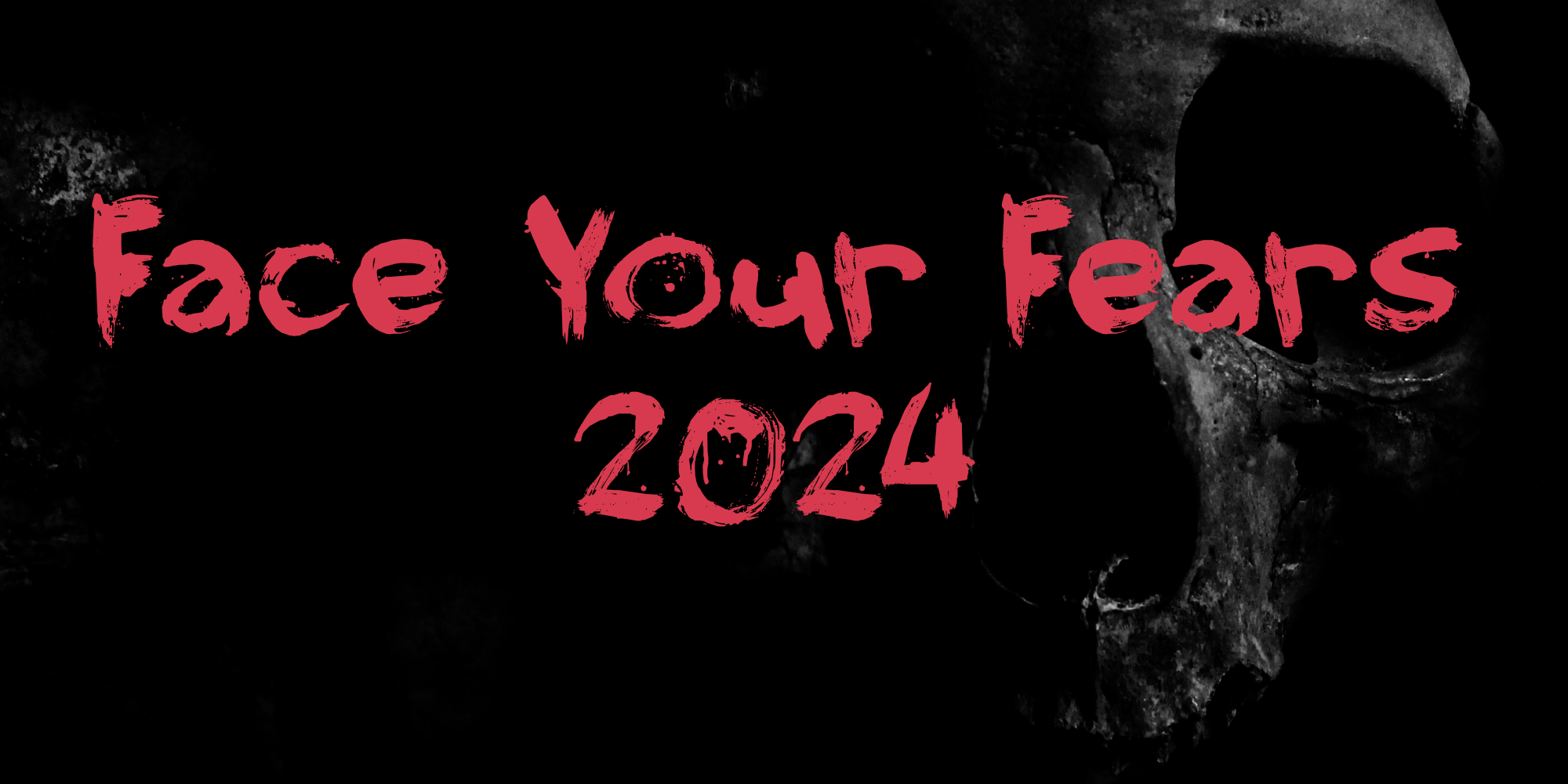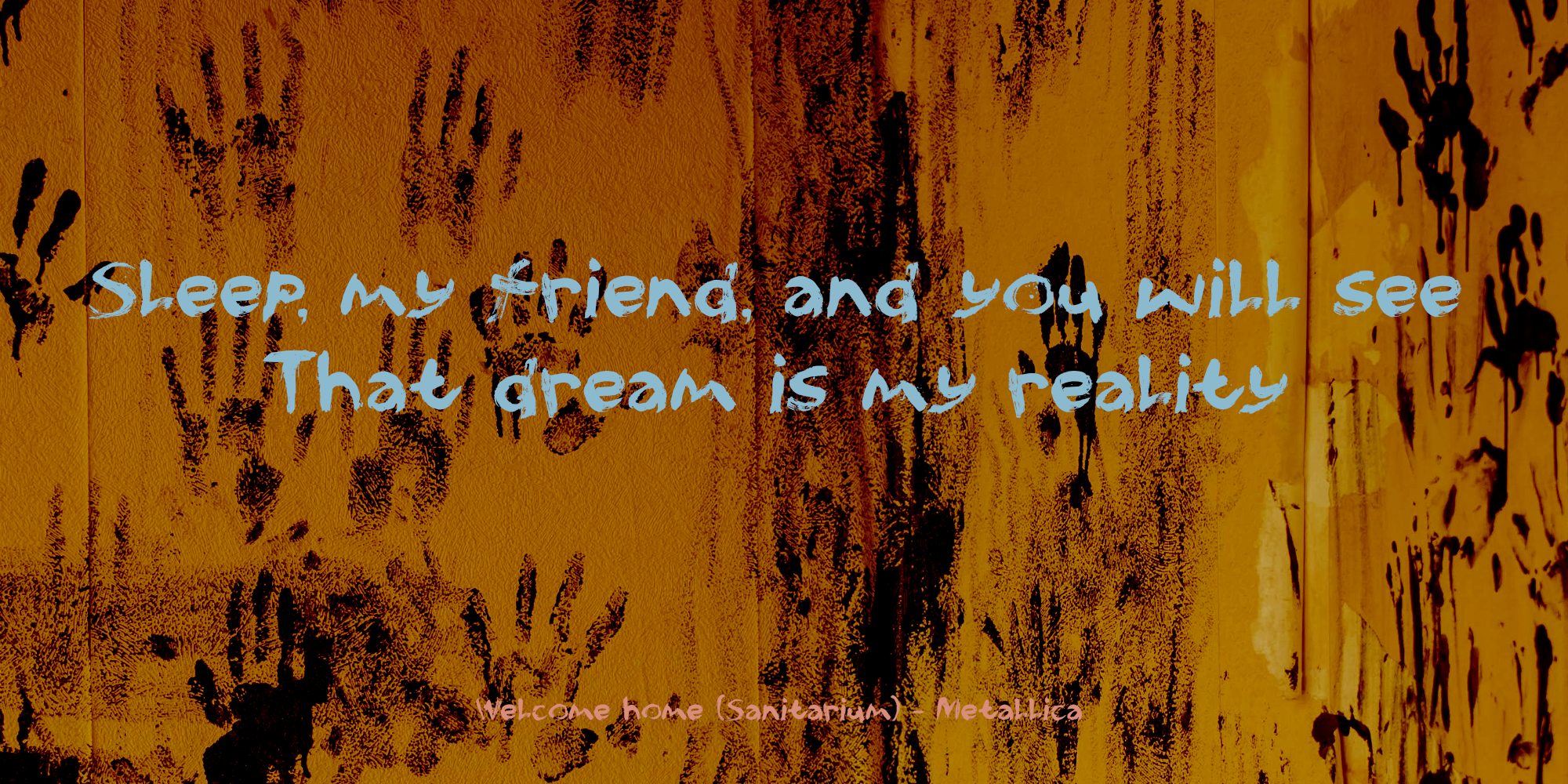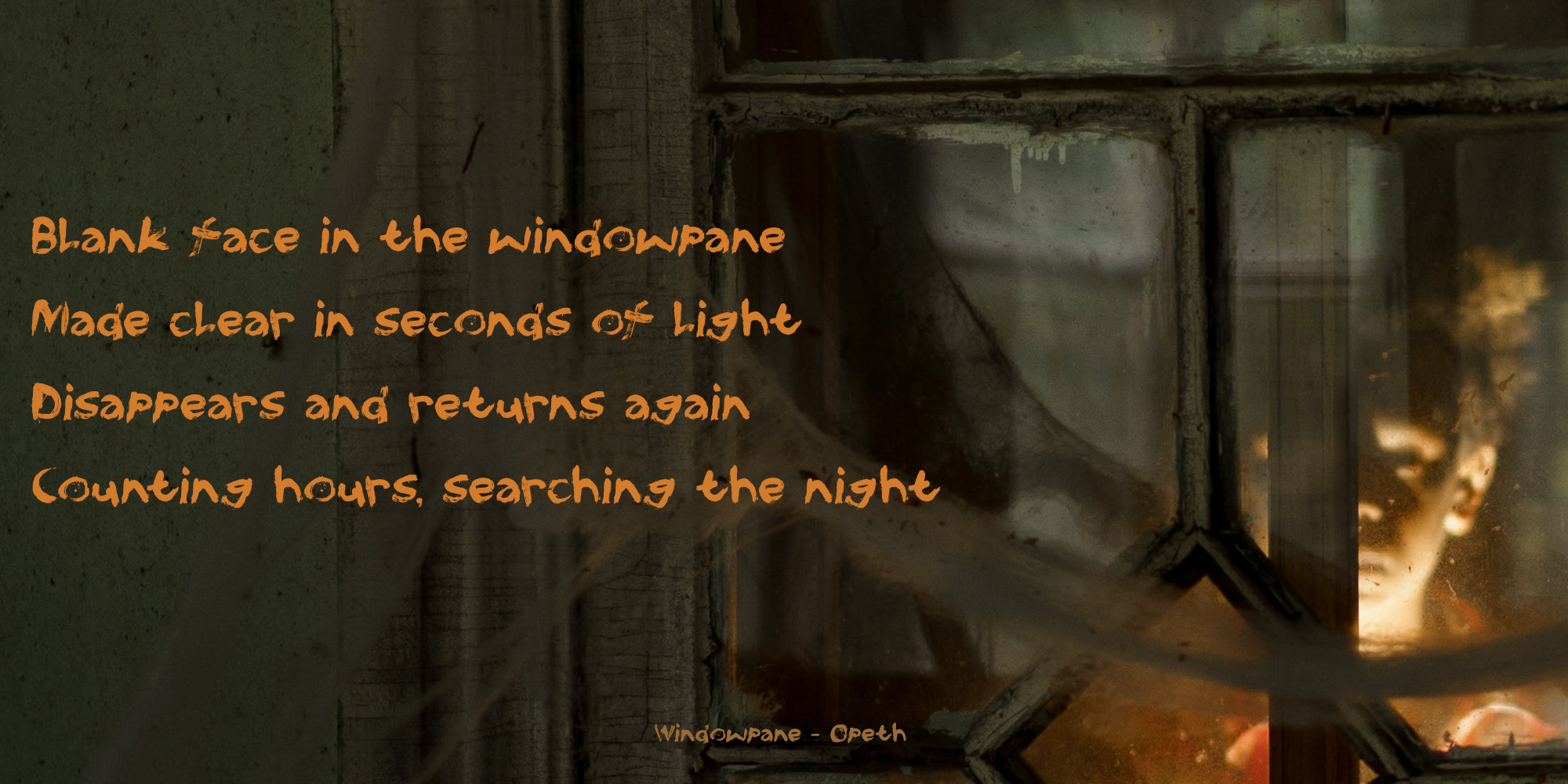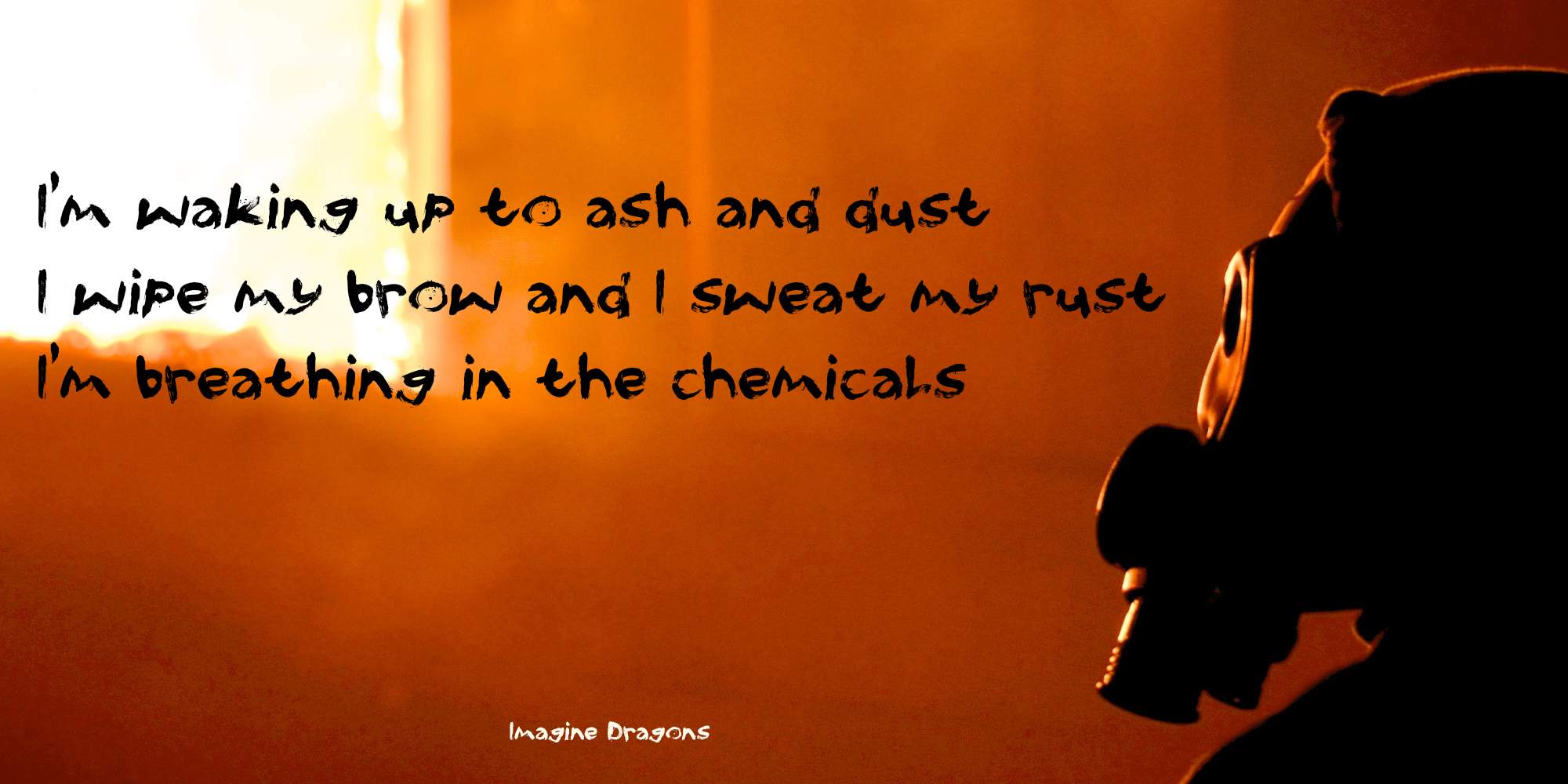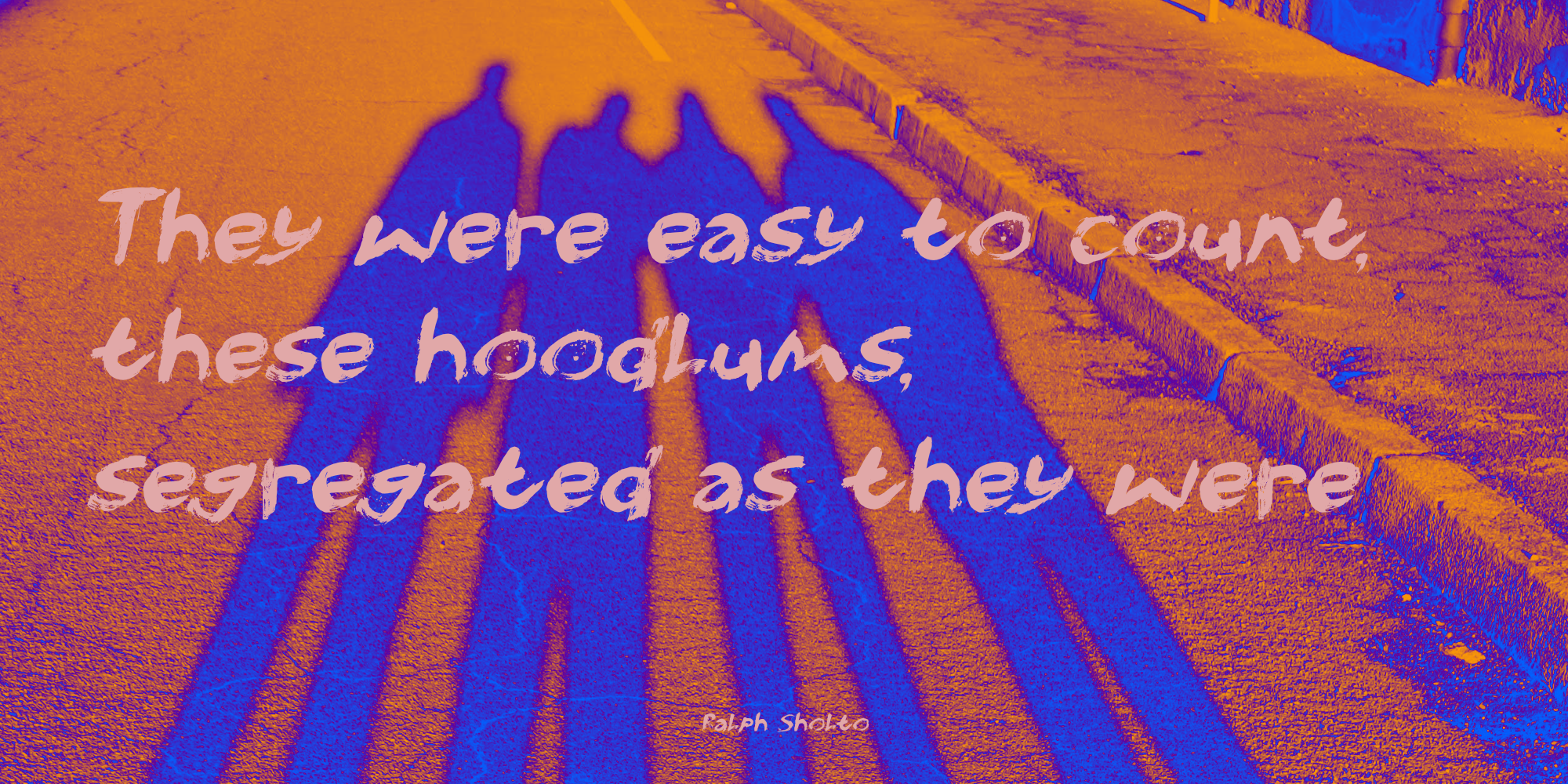
Face Your Fears 2024 (2 fonts)
Face Your Fears 2024 uses the same caps as the original font, but I have altered them slightly to fit the new set of lower case glyphs. I have added extensive language support and some missing glyphs as well.